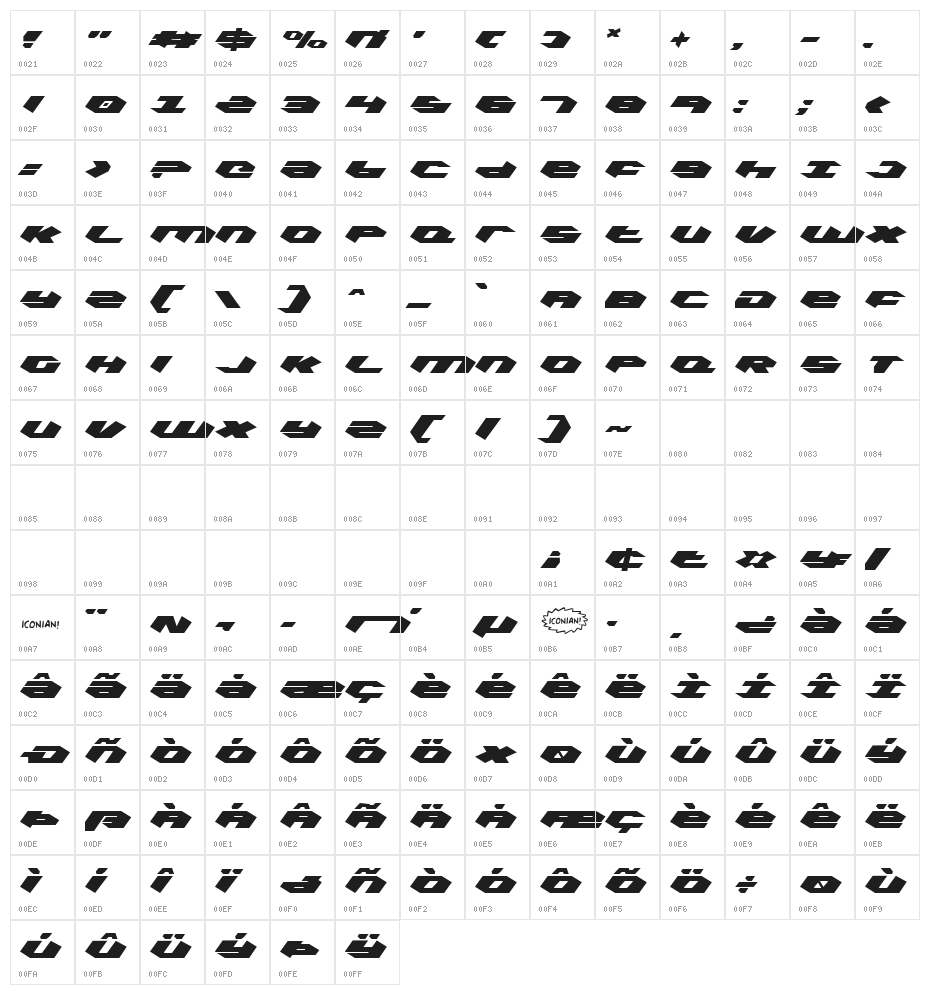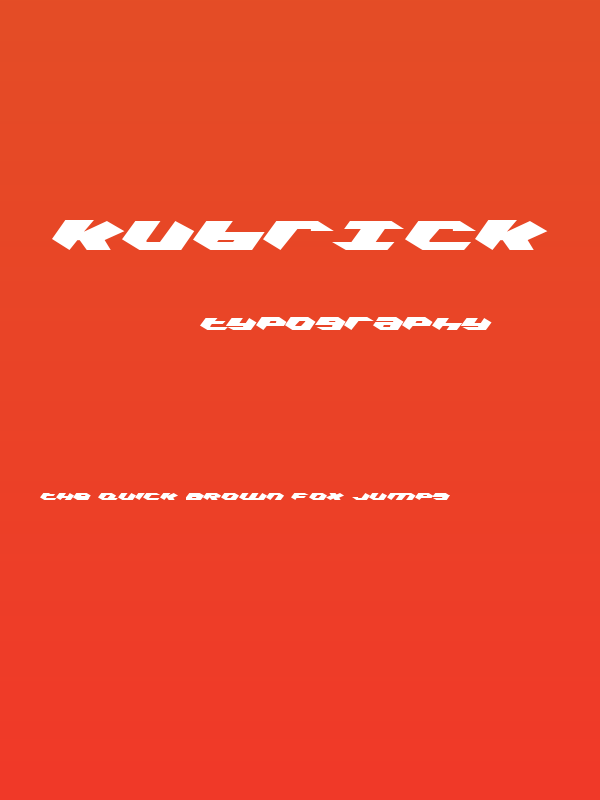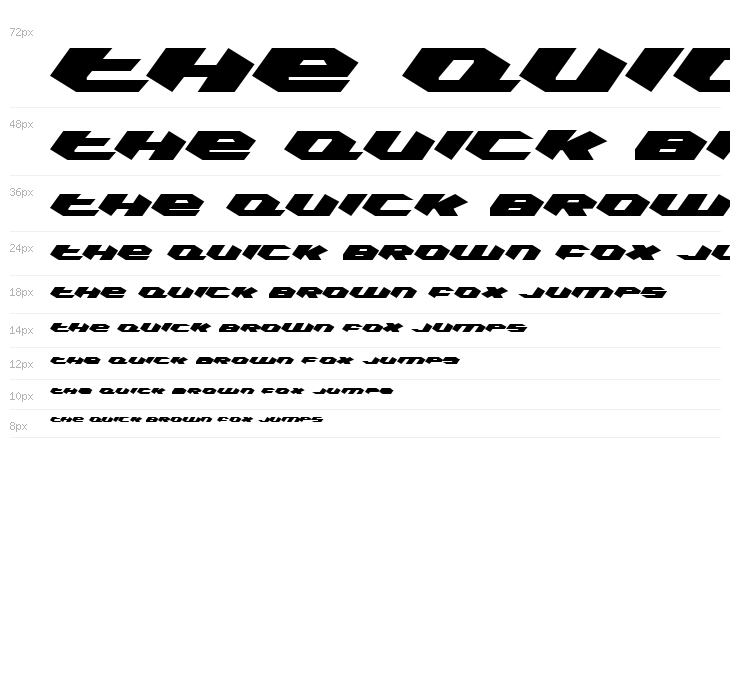
Kubrick Font
Kubrick Description
This font features a bold, futuristic design with sharp angles and a distinct geometric style. The characters are slanted, giving a sense of motion and speed. The uppercase and lowercase letters maintain a consistent style, with the uppercase being slightly more pronounced. Numbers and special characters follow the same angular and dynamic aesthetic, making them stand out. The overall appearance is modern and edgy, suitable for projects that require a strong visual impact.
| Overall Style | Futuristic, Modern |
| Proposed Projects | Ideal for sci-fi themed designs, video game titles, tech branding, and futuristic posters. |